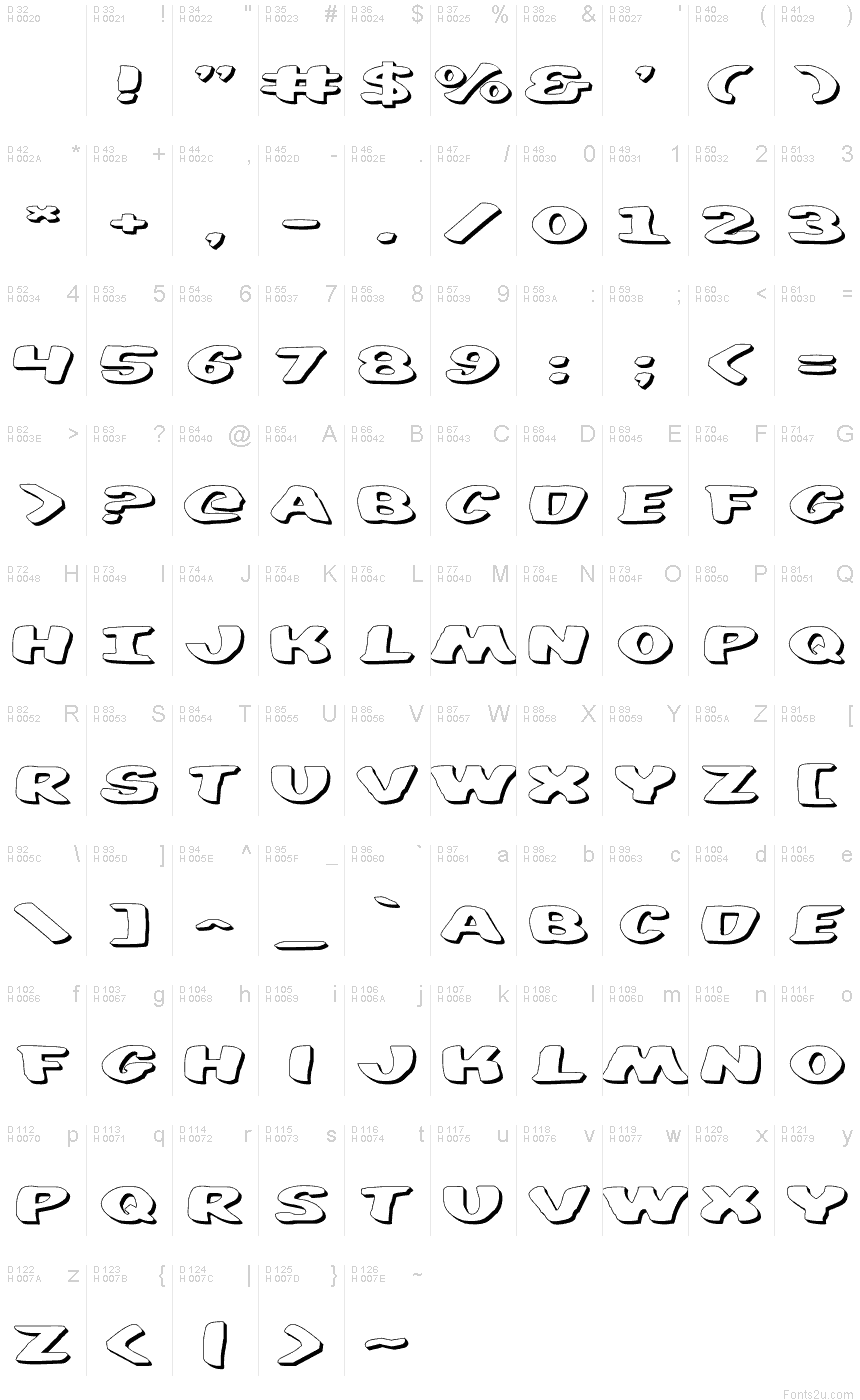
DiegoCon 3D
DiegoCon 3D font by Iconian Fonts is a free comic display typeface that looks like it’s been puffed up and dropped onto the page. Each letter has a chunky, squishy shape with a bold inky outline and a built‑in shadow that gives instant depth, like classic hand-drawn comic panels. The slightly uneven contours keep it playful and energetic, so your titles feel alive rather than stiff.
Using DiegoCon 3D, text jumps forward on kids’ event posters, comic book covers, game titles, playful logos, YouTube thumbnails, and snack or toy packaging. This free font works best at larger sizes where the 3D shading and curves can really show. Pair it with a clean rounded sans-serif for supporting text to keep the main headline as the loud, bouncy hero.